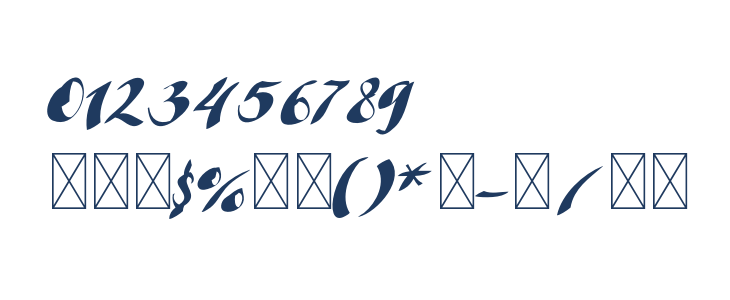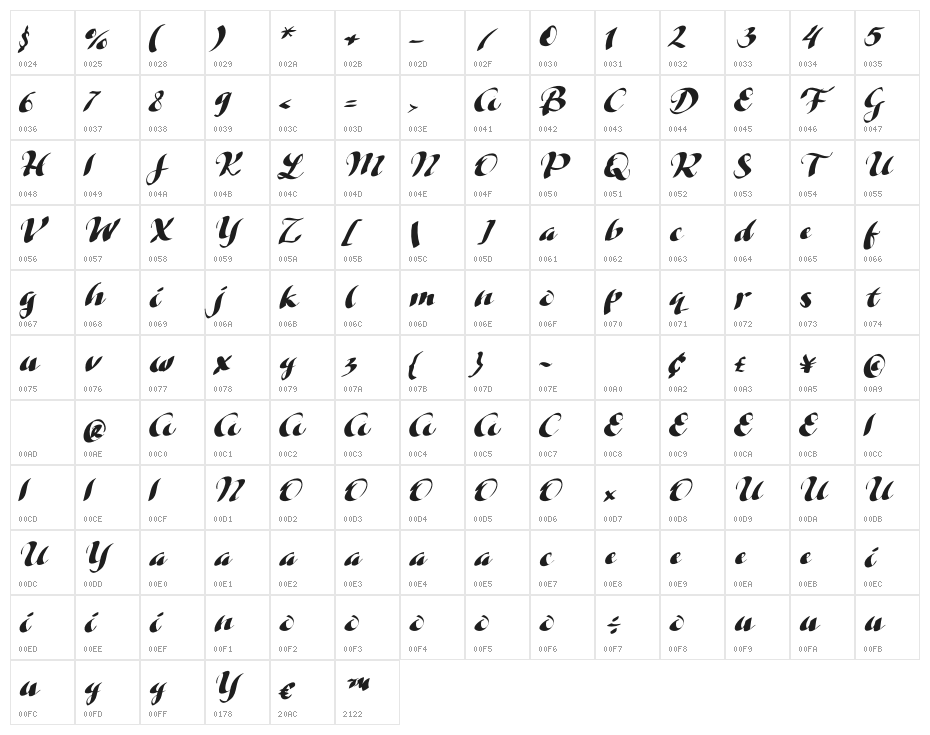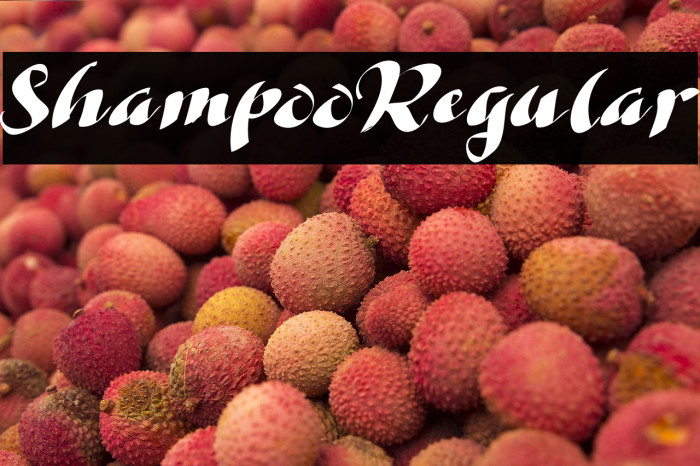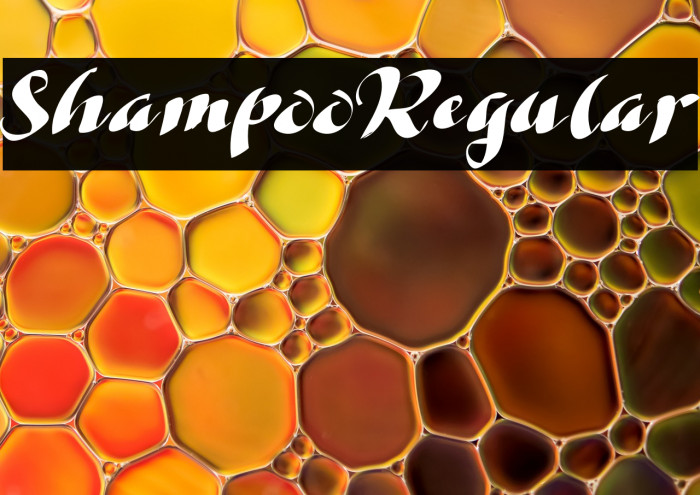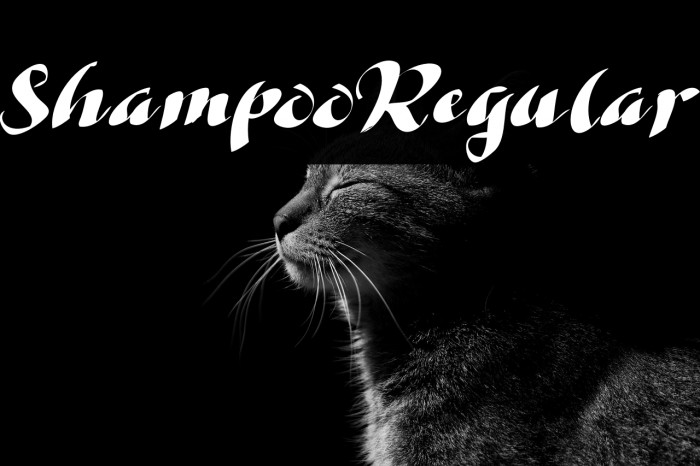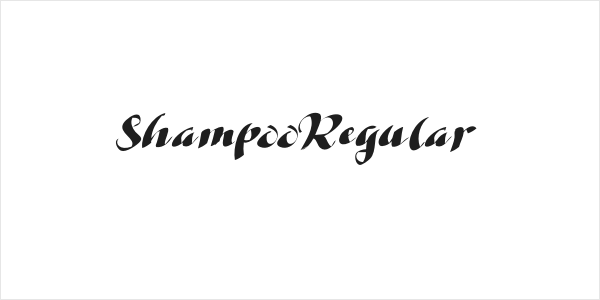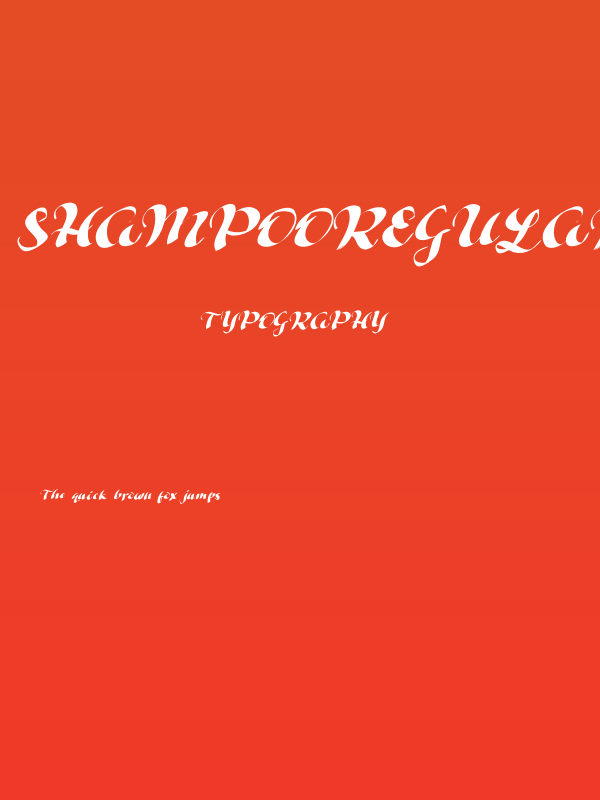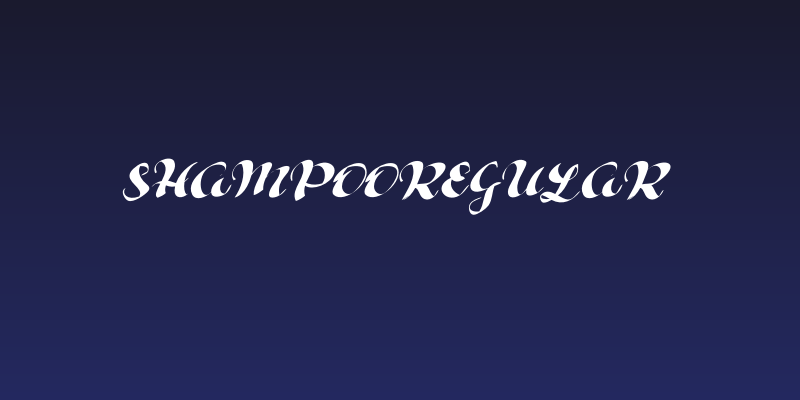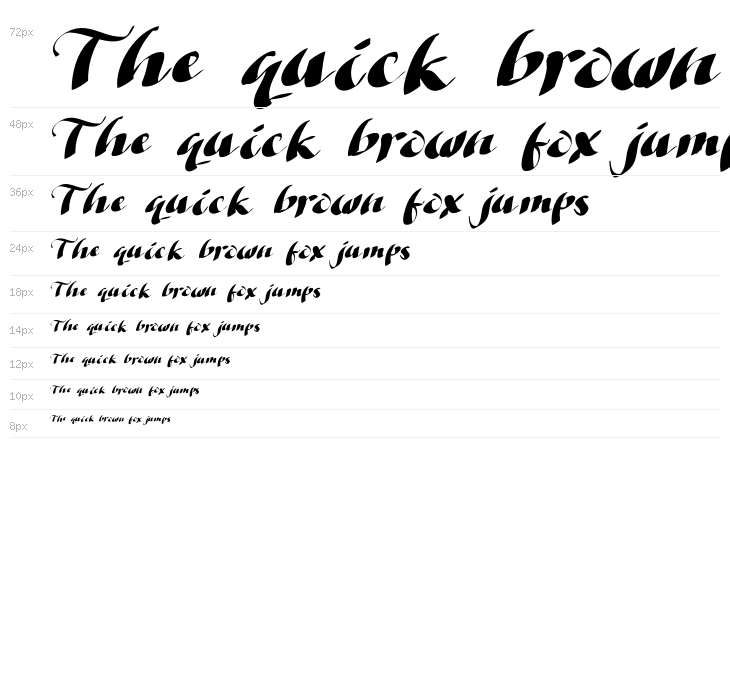
ShampooRegular Font
ShampooRegular Description
This font features a bold and expressive script style, characterized by its flowing, cursive letterforms. The strokes are thick and dynamic, with a high contrast between thick and thin lines, giving it a dramatic and elegant appearance. The uppercase letters are particularly ornate, with sweeping curves and flourishes that add a sense of movement and grace. The lowercase letters maintain a consistent style, with smooth connections and a slightly slanted orientation that enhances the handwritten feel. The numerals and special characters are designed to match the overall aesthetic, ensuring a cohesive look across all text elements.
| Use Case | Logos, Headlines, Invitations |
| Proposed Projects | Ideal for wedding invitations, branding projects, and elegant packaging designs. |